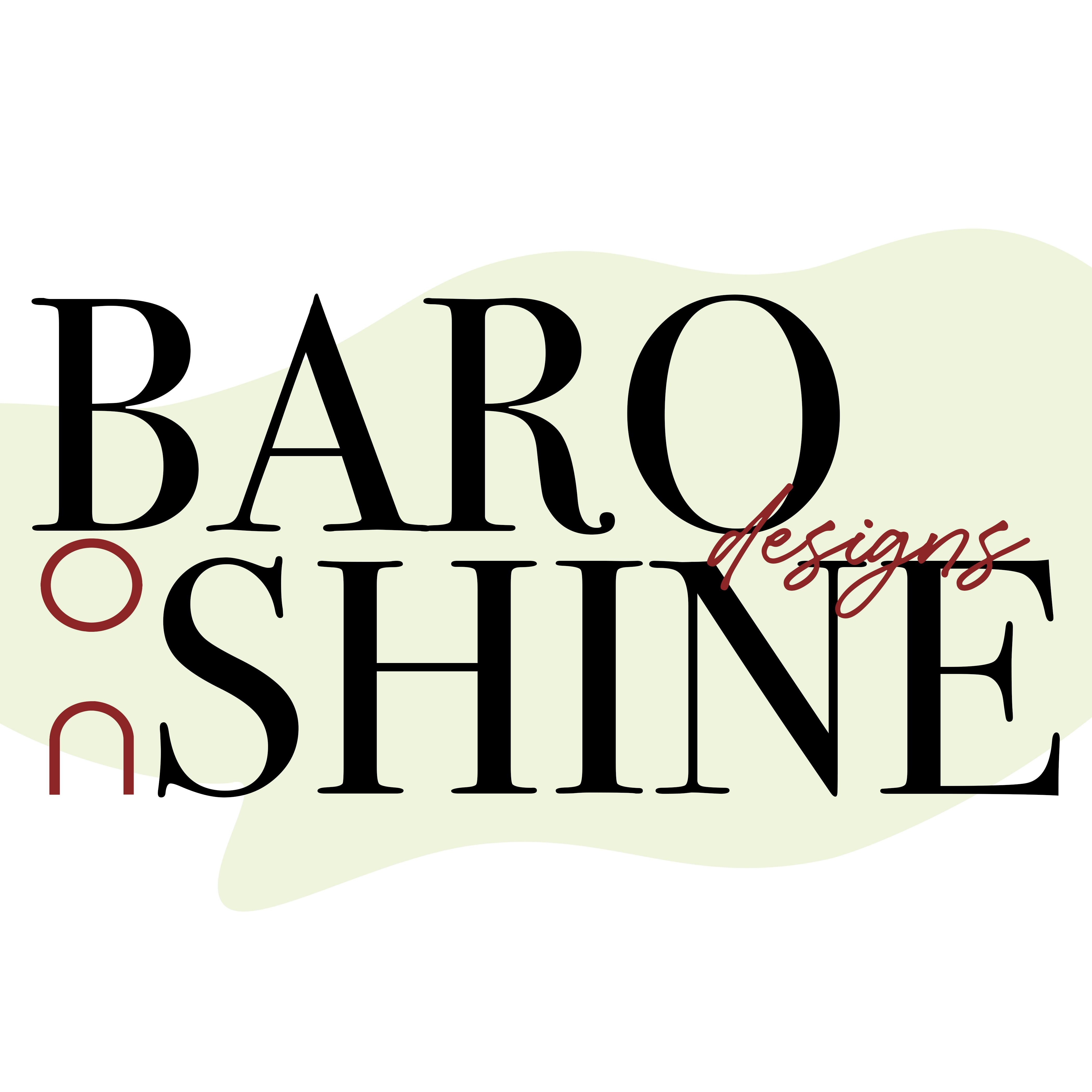
Beach Fly Font Description
Beach Fly is a stylish and classic serif font with a unique vibe & look. This typeface is perfect for luxury logos, book or movie title designs, fashion brands, magazine covers, clothes, lettering, quotes, and so much more. Beach Fly is PUA encoded which means you can access all of the glyphs and swashes with ease!